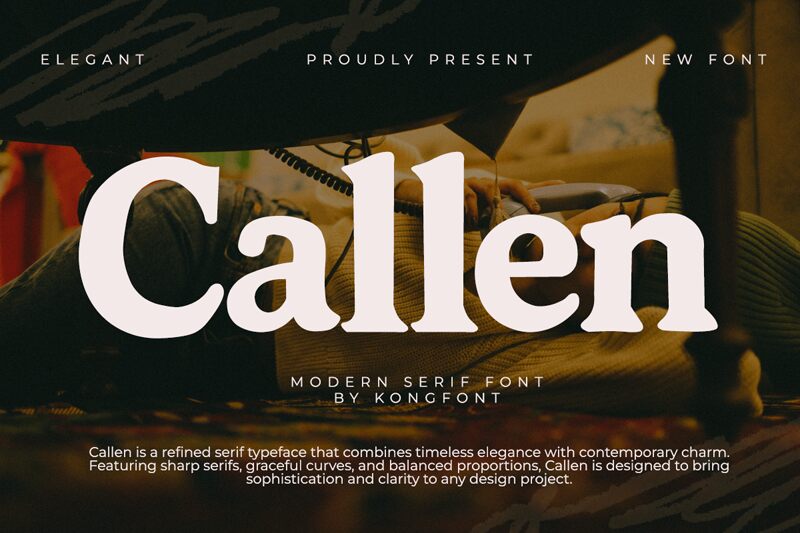
Callen font by Kong Font combines elegance and sophistication in an ultra-modern serif font that’s free for personal use. This graceful typeface incorporates the refined curves that make for a serious style upgrade to your projects all those who view them. Its charm is timeless and it displays a contemporary appeal that would suit many of your display purposes. Using this professional font, you’ll be able to convey gorgeous typography with simplicity, while maintaining the impact of the visuals as intended.
Callen can be used in a large array of purposes, no excuses needed. Use it to design awesome magazine layouts, product packaging, printed throw blankets, or some beautiful typography quotes. It also makes wonderful titles for movie posters, notebooks, and book covers. Not to mention that it’s always a top recommendation for branding projects, packaging design, and logo creation.